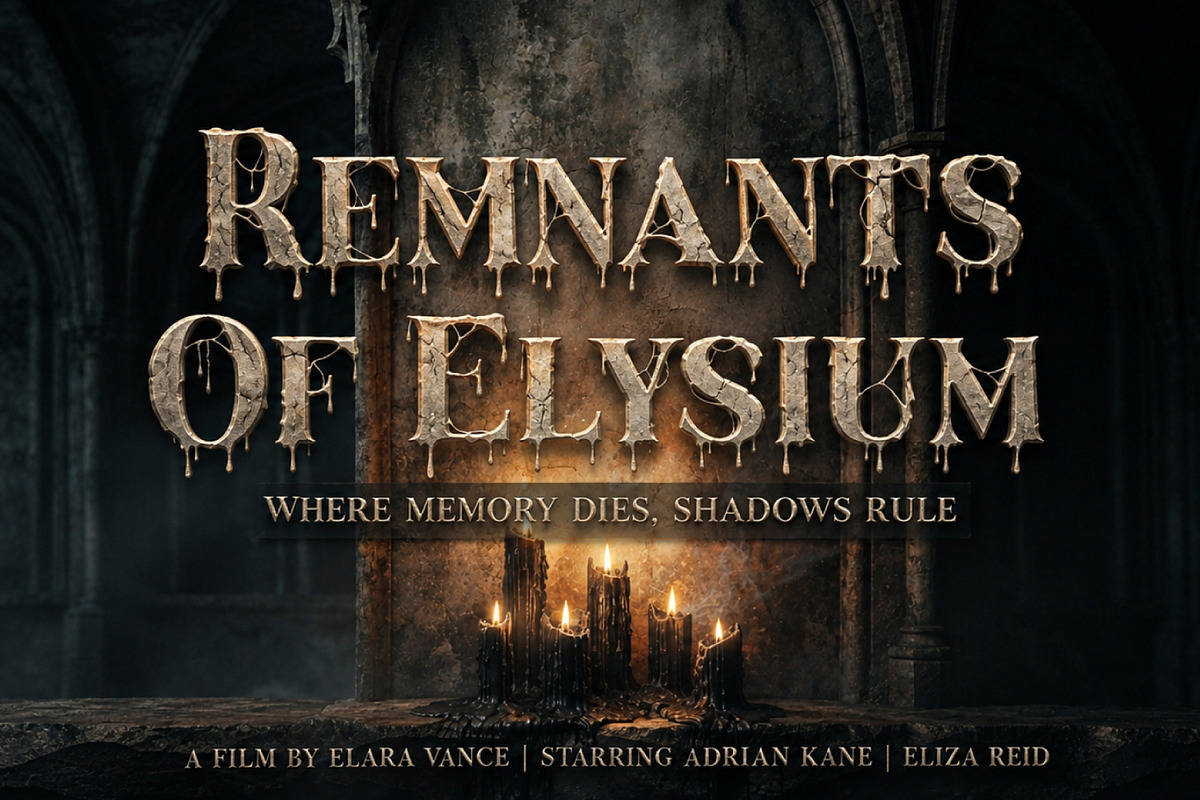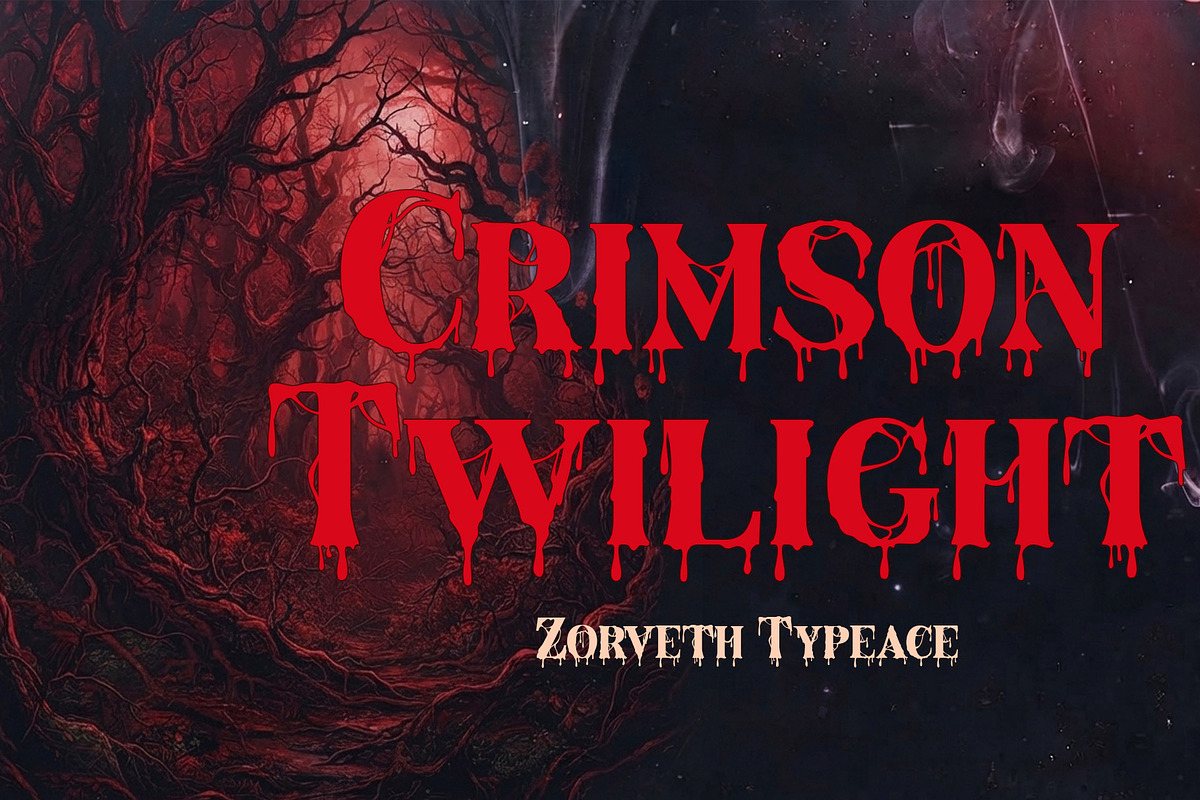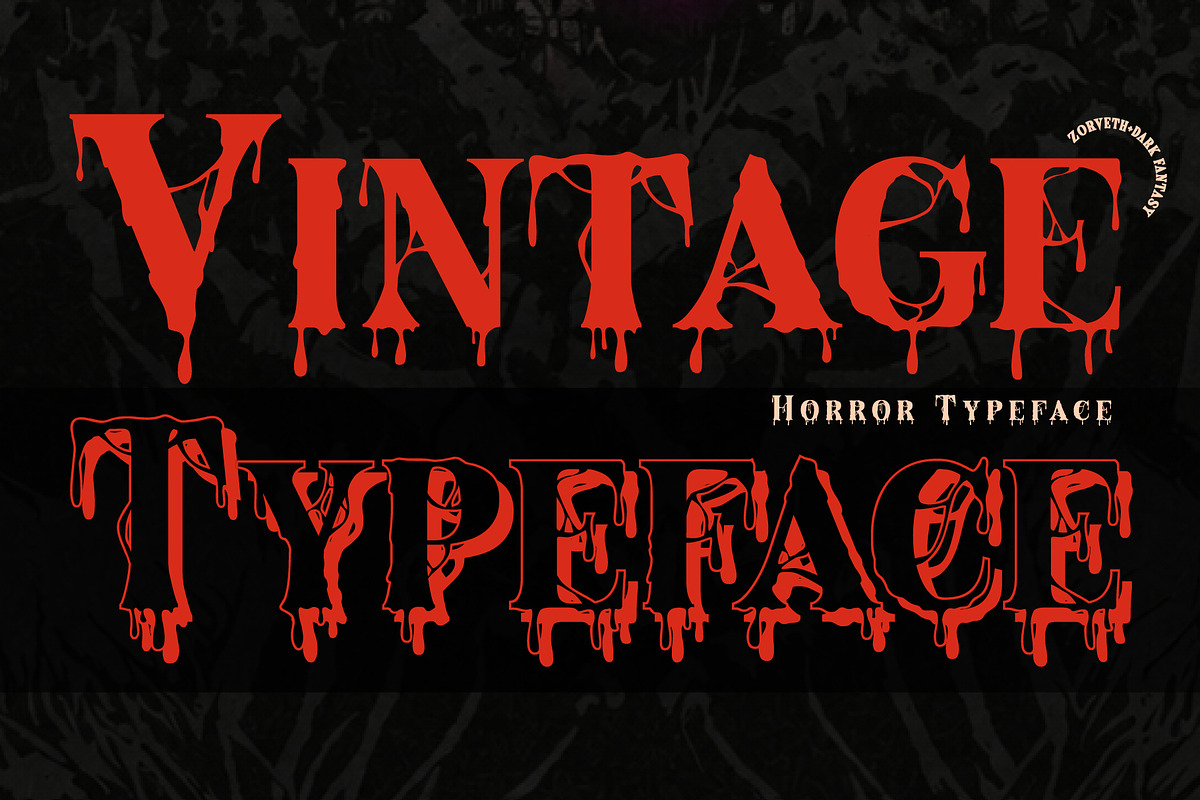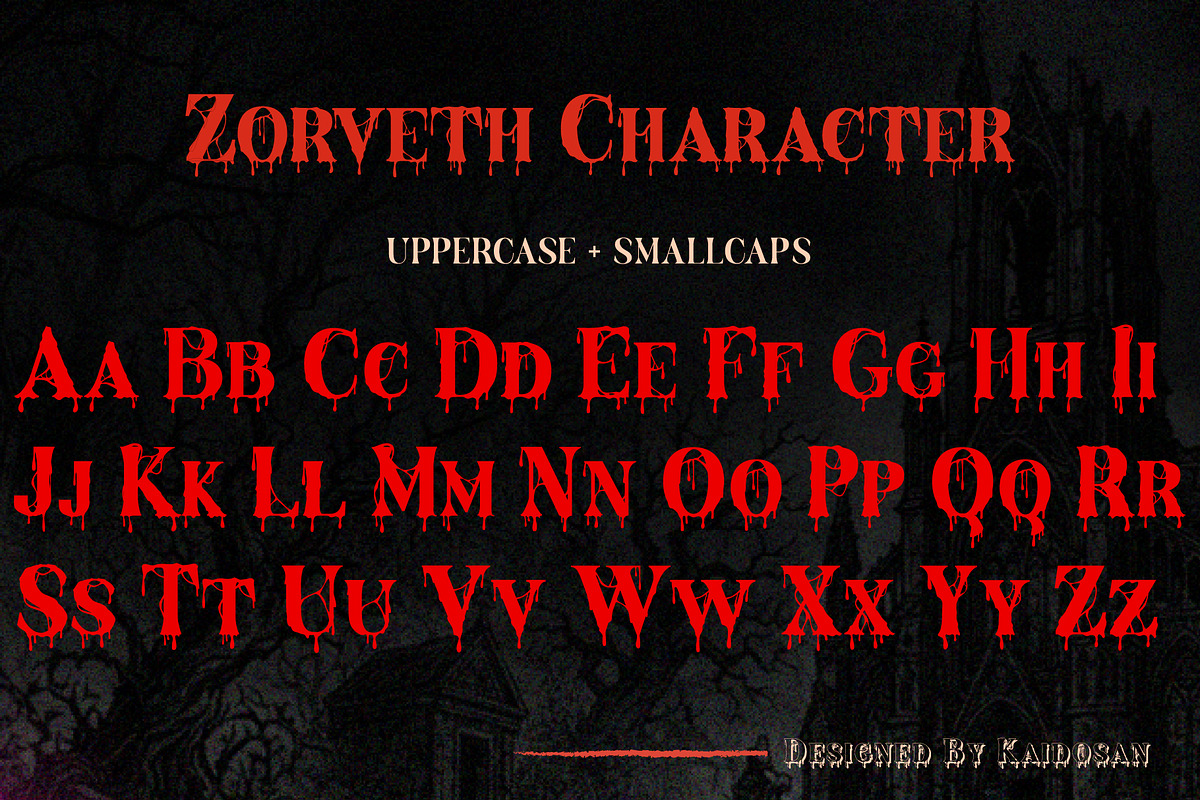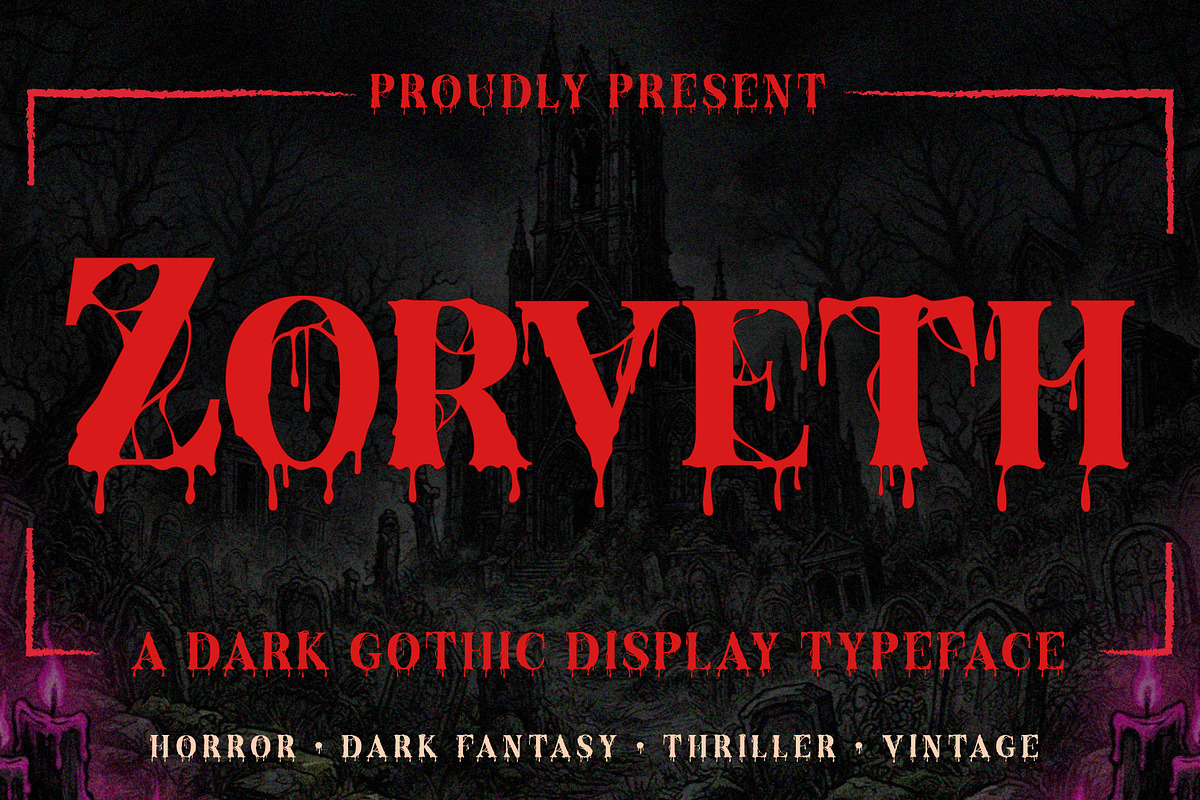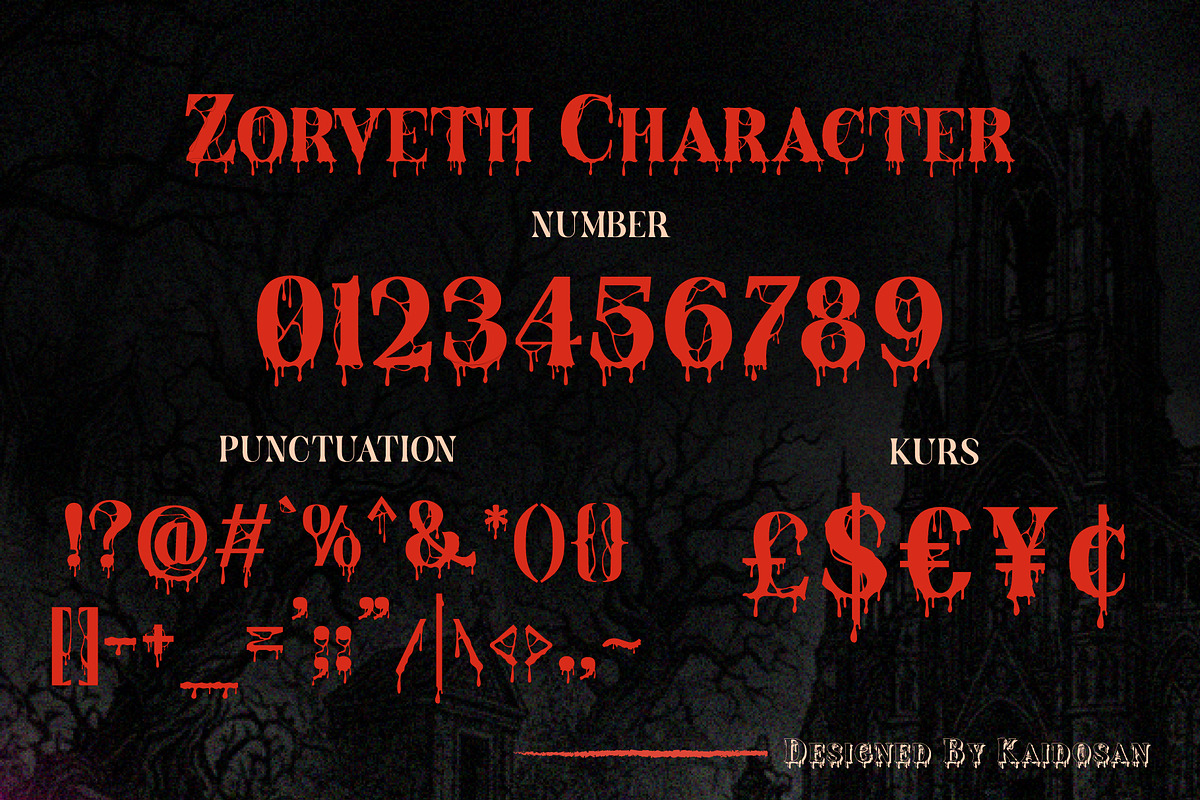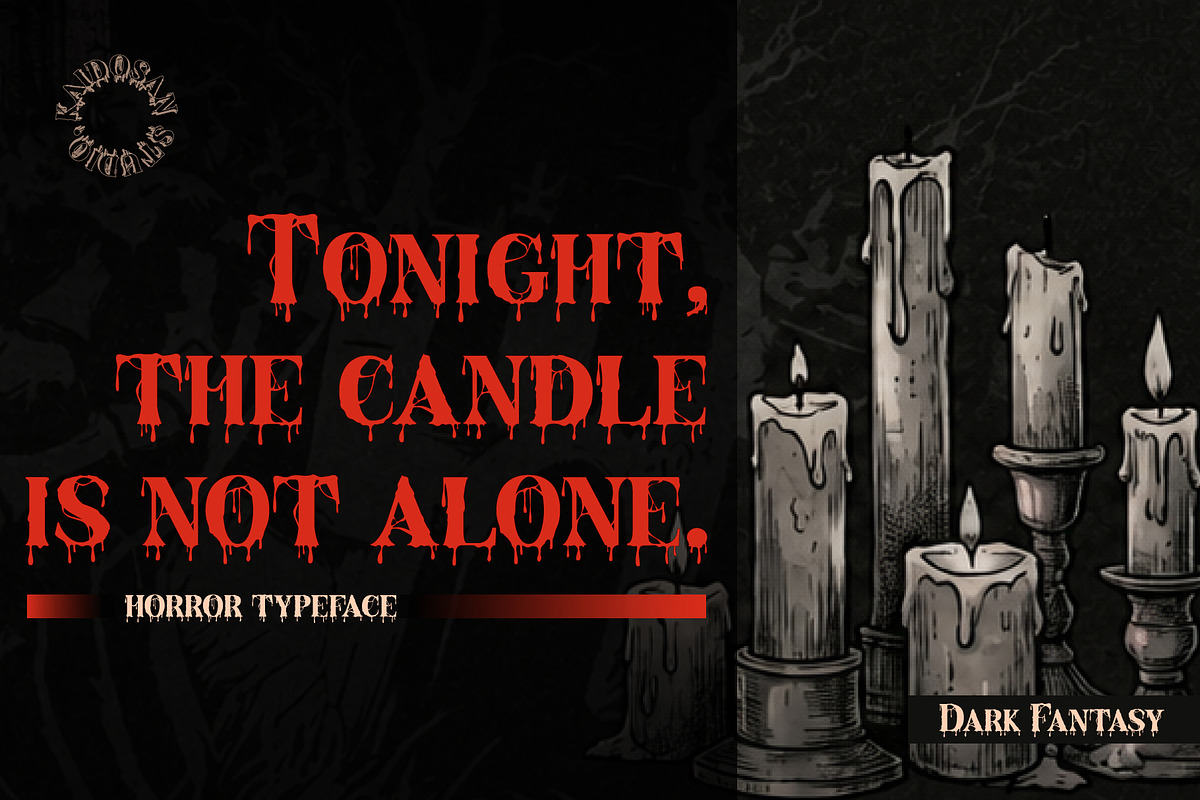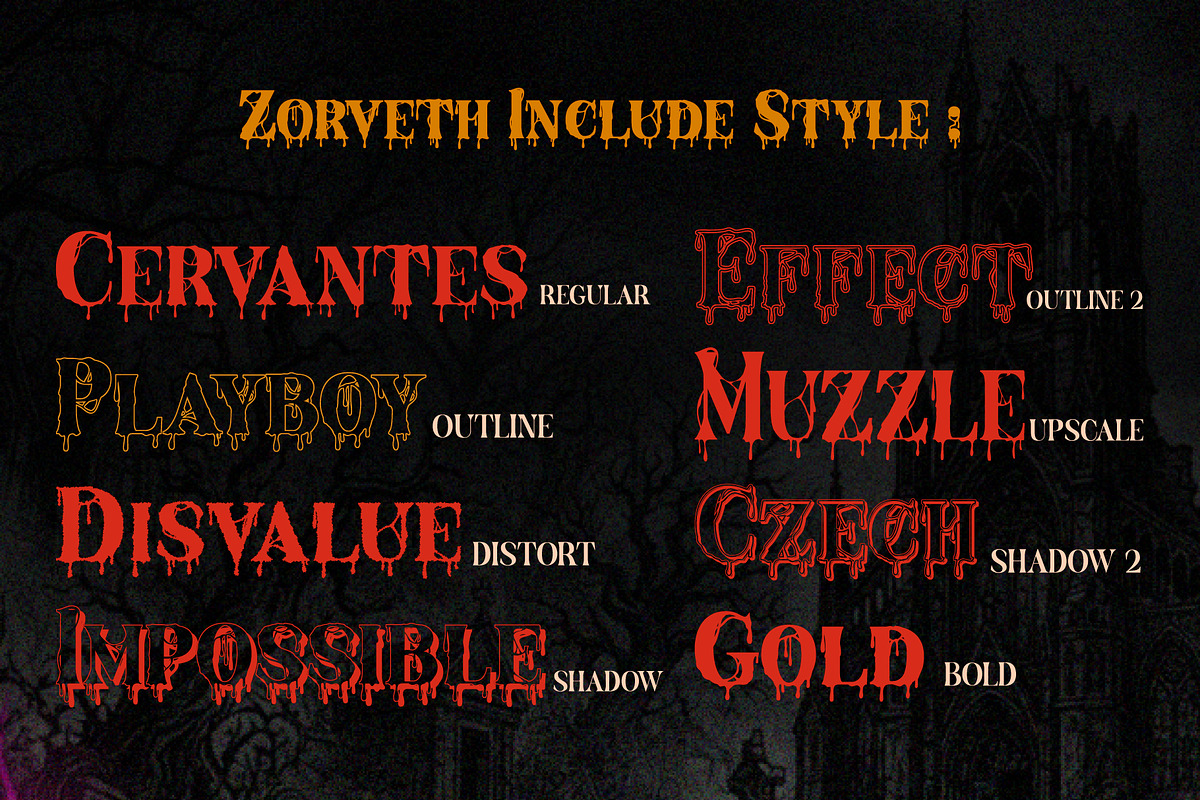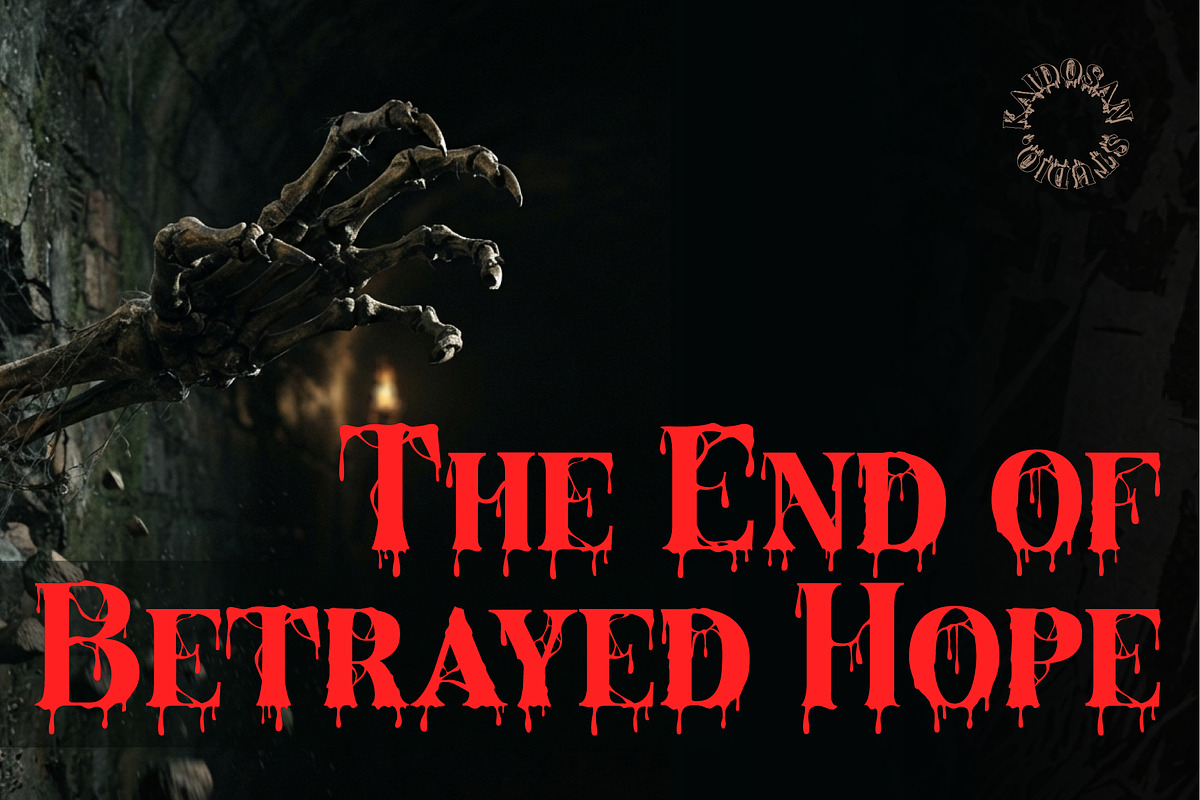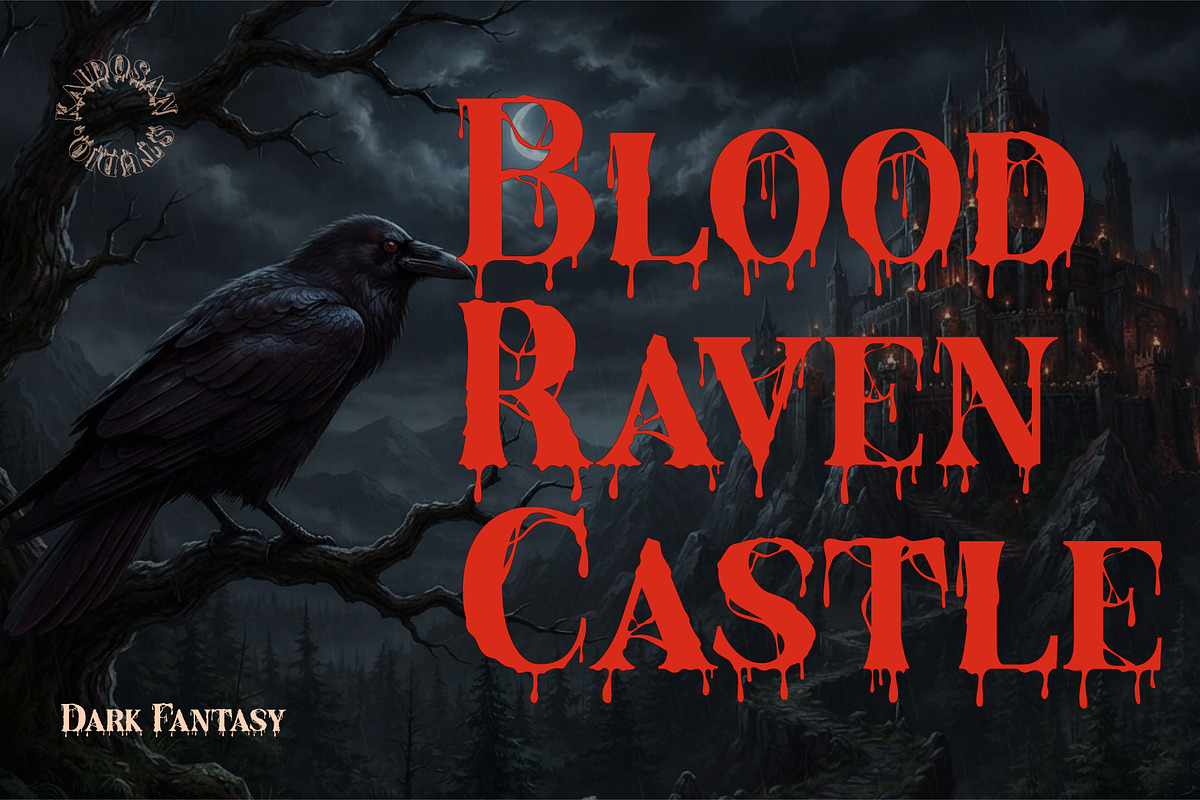
Zorveth
Zorveth is a dark Gothic display typeface inspired by horror, dark fantasy, occult aesthetics, vintage typography, and mysterious medieval lettering. Its sharp ornamental forms, irregular details, dramatic shapes, and distinctive dripping elements create a sinister and unforgettable visual presence.
With 8 versatile styles — Regular, Bold, Distort, Outline, Duo Outline, Shadow, Outline Shadow, and Upscale — Zorveth offers endless possibilities for creating bold, layered, dimensional, and experimental designs. Each style brings a different character, allowing designers to create striking visual compositions with depth and atmosphere.
Perfect for horror posters, movie titles, album covers, dark branding, T-shirts, book covers, packaging, logos, game titles, merchandise, and powerful display typography. Zorveth is designed to give every project a dark, mysterious, vintage, and cinematic identity.